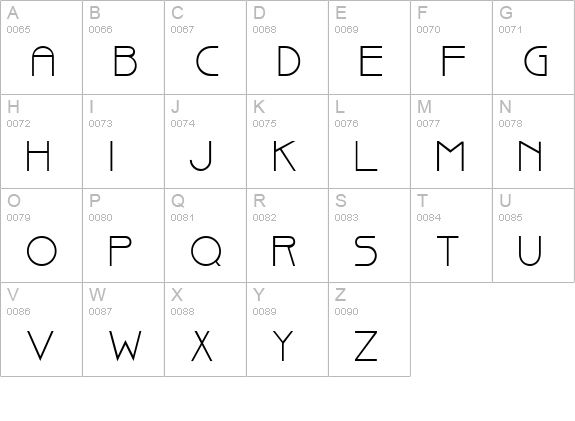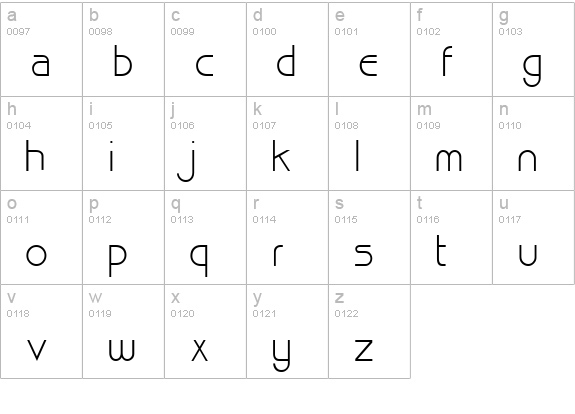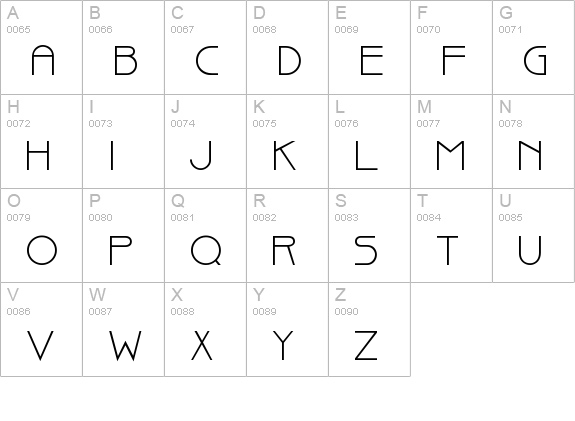
TR Brisk Font Details
Introducing TR Brisk font, a modern and stylish typeface that is sure to add a touch of sophistication to your design projects. With its sleek lines and elegant curves, TR Brisk font is perfect for a wide range of applications, from branding to editorial design. What sets TR Brisk font apart is not only its timeless design but also the fact that it is available for free. That's right, you can download TR Brisk font for free at FontsMarket.com. Whether you're working on a personal project or a client's work, this versatile font will elevate your designs to the next level. So why wait? Download TR Brisk font today and see for yourself the impact it can have on your creative endeavors.